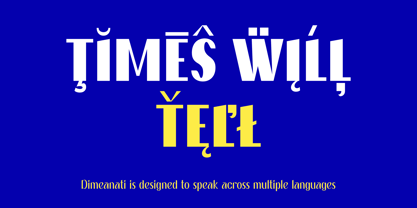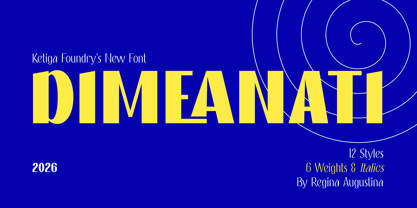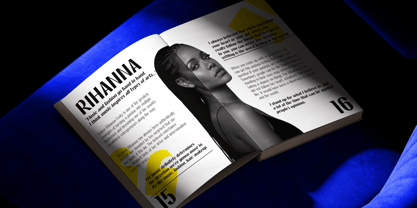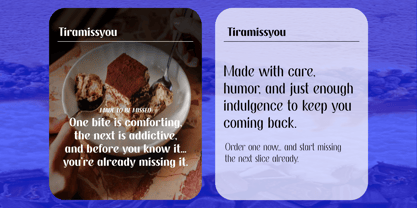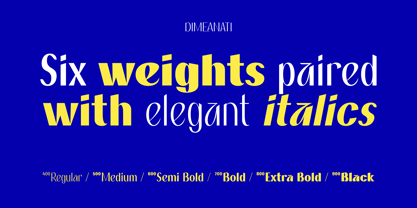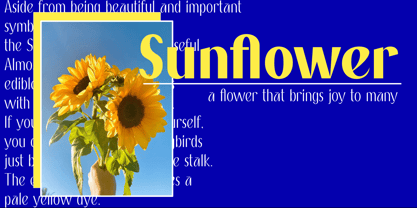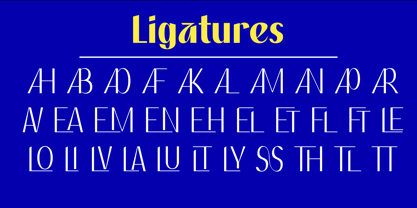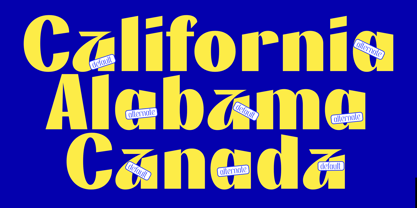
Dimeanati
La familia tipográfica Dimeanati fue diseñada por Reginaa Augustina y publicada por Ketiga Foundry. Dimeanati contiene 12 estilos y opciones de paquete familiar. Más información sobre esta familia
Dimeanati is an editorial serif type family meticulously crafted for contemporary publishing and sophisticated brand expression. Characterized by its high-contrast construction and sculpted details, Dimeanati achieves a perfect balance between clarity and character, allowing typography to convey both authority and expressiveness. The family includes six carefully calibrated weights, each paired with a matching italic that adds movement and nuance while ensuring readability. Whether for commanding headlines or immersive long-form text, Dimeanati adapts effortlessly across various editorial layouts, book design, fashion branding, and cultural applications. Designed with extensive multilingual support, Dimeanati effectively communicates across languages while maintaining a consistent and elegant voice. Its refined proportions and confident rhythm make it an ideal choice for designers in search of a modern serif that embodies enduring sophistication.